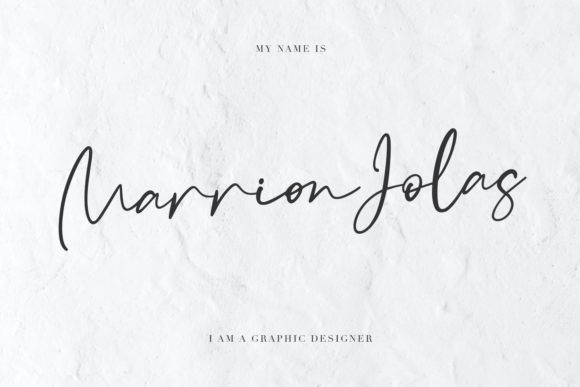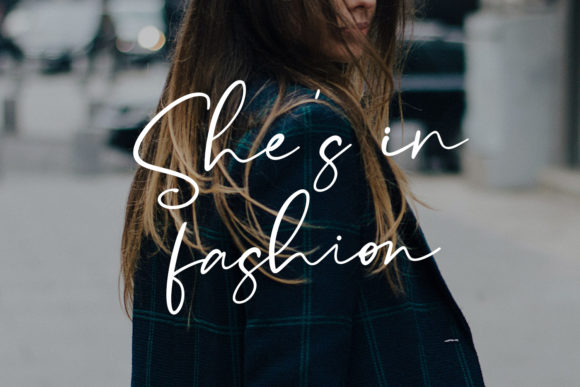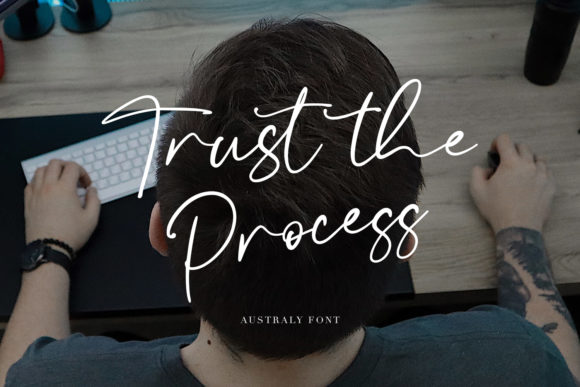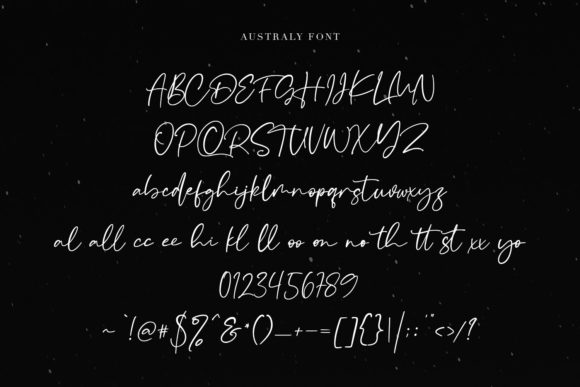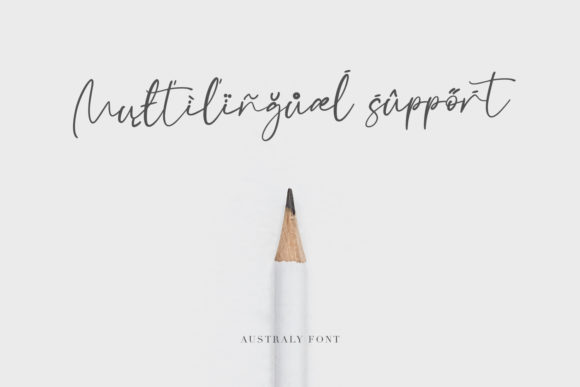
Australy Font: Elevate Your Creative Projects with Elegance and Sophistication
Australy Font is a stunning signature font that has been gaining popularity among designers, crafters, and social media enthusiasts. This beautiful calligraphy script is perfect for anyone looking to add a touch of elegance and sophistication to their creative projects. Whether you’re looking for fonts for Instagram or calligraphy scripts for DIY projects, Australy Font is the perfect choice.
What Makes Australy Font So Special?
Australy Font is a unique and exquisite calligraphy script that is designed to make your creative projects stand out. Its elegant and flowing strokes are perfect for creating beautiful headings, titles, and quotes. The font is highly versatile and can be used for a wide range of projects, from social media graphics to DIY crafts, wedding invitations, and more.
Perfect for Instagram and Social Media
In today’s digital age, having a strong online presence is crucial. With Australy Font, you can elevate your Instagram and social media graphics to the next level. The font’s elegant and sophisticated design makes it perfect for creating eye-catching captions, quotes, and graphics that will grab the attention of your followers. Whether you’re a blogger, influencer, or business owner, Australy Font is a great tool to have in your creative arsenal.
Endless DIY Possibilities
Australy Font is not just limited to digital use. It’s also perfect for DIY projects, such as scrapbooking, card making, and other paper crafts. The font’s beautiful calligraphy script can be used to create stunning titles, headings, and quotes that will add a personal touch to your handmade projects. Whether you’re a seasoned crafter or a beginner, Australy Font is a great addition to your crafting toolkit.
Key Features of Australy Font
- Elegant Calligraphy Script: Australy Font features a beautiful, flowing calligraphy script that is perfect for creating stunning headings and titles.
- Highly Versatile: The font can be used for a wide range of projects, from social media graphics to DIY crafts, wedding invitations, and more.
- Unique and Exquisite: The font’s unique and exquisite design makes it perfect for creating beautiful and eye-catching graphics.
Tips for Using Australy Font
Here are some tips for using Australy Font to get the most out of this beautiful calligraphy script:
- Experiment with Different Sizes and Colors: Australy Font looks great in a variety of sizes and colors. Experiment with different combinations to find the one that works best for your project.
- Pair with Other Fonts: Australy Font pairs well with other fonts, such as sans-serif fonts and script fonts. Experiment with different pairings to find the one that works best for your project.
- Use for Headings and Titles: Australy Font is perfect for creating stunning headings and titles. Use it to add a touch of elegance and sophistication to your project.
Australy Font is a beautiful signature font that is perfect for designers, crafters, and social media enthusiasts. Its elegant and sophisticated design makes it perfect for creating stunning headings, titles, and quotes. Whether you’re looking for fonts for Instagram or calligraphy scripts for DIY projects, Australy Font is the perfect choice. With its highly versatile design and easy-to-use features, Australy Font is a great addition to any creative toolkit.